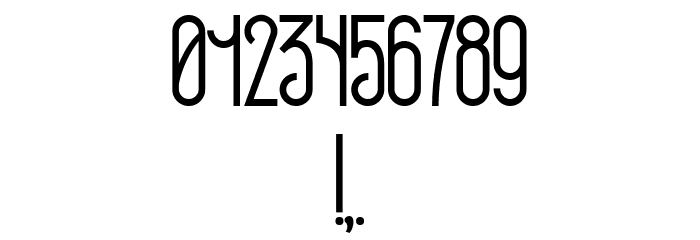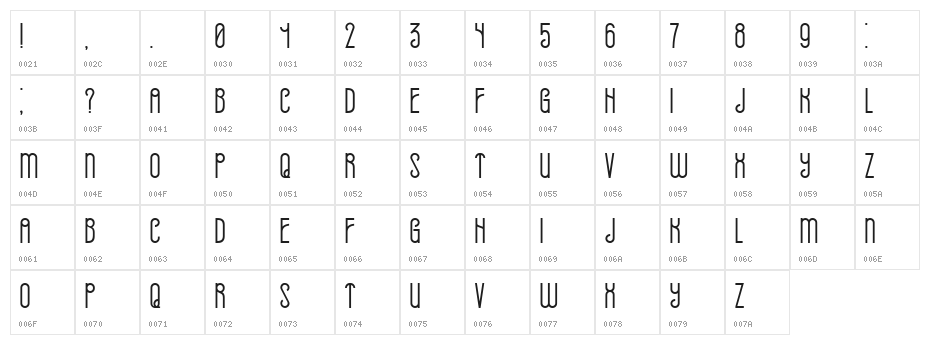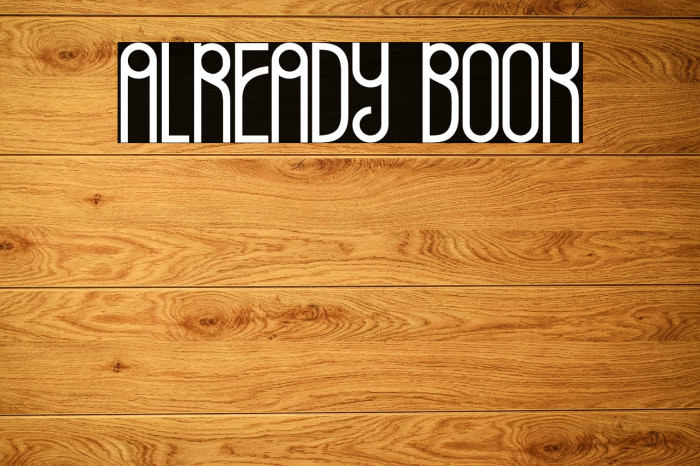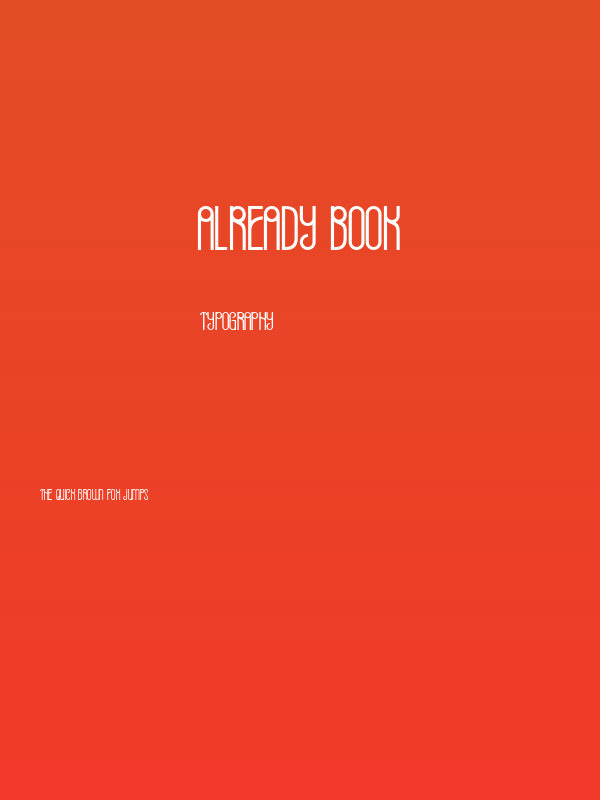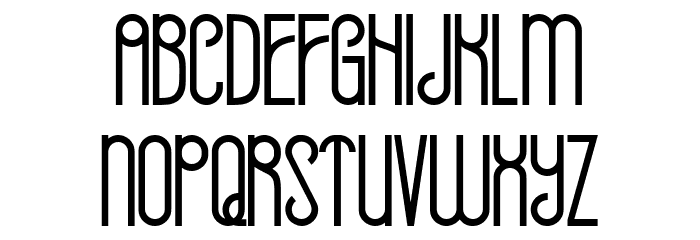
Already Book Font
Already Book Description
This font features a unique and modern design with elongated, narrow characters that give it a sleek and sophisticated appearance. The uppercase and lowercase letters maintain a consistent height, creating a uniform look across the text. The numerals are distinct and easy to read, complementing the overall style. The special characters are designed with the same attention to detail, ensuring they blend seamlessly with the rest of the font. Its clean lines and geometric shapes make it suitable for contemporary design projects.